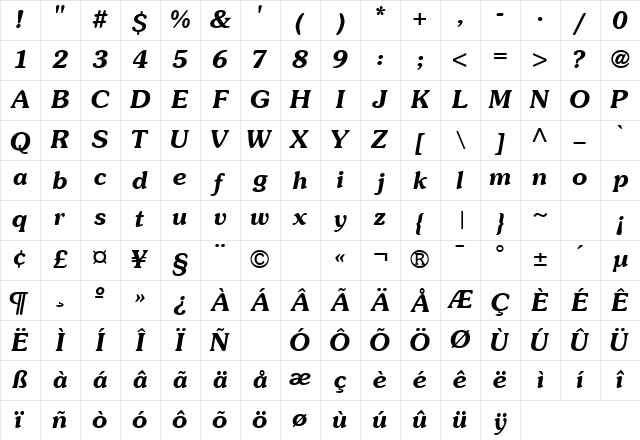
SouvenirBlackSSK BoldItalic
Design Context for SouvenirBlackSSK
SouvenirBlackSSK is a composed and adaptable typeface that performs quietly and consistently across a wide range of design contexts. The slanted form adds forward momentum and visual energy. Its bold stroke weight gives it real presence on the page.
Pro Tip: Use SouvenirBlackSSK for emphasis, pull quotes, and subheadings where its slanted energy can add rhythm to the layout.